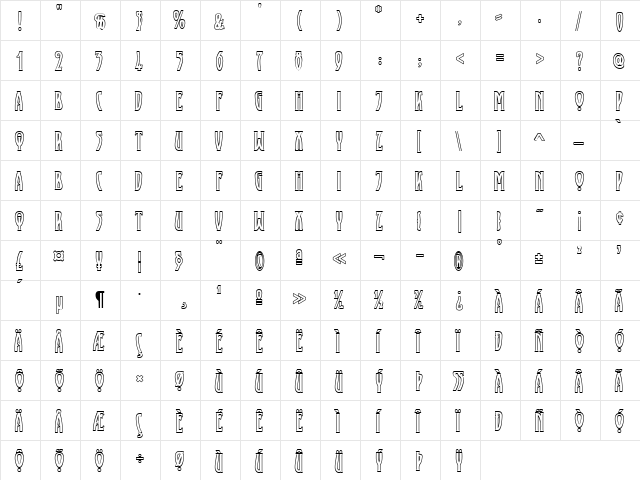
XAyax Outline Regular
| Foundry | Peter Wiegel |
| Designer | Peter Wiegel |
Design Context for XAyax Outline Typeface
XAyax Outline brings ornamental detail and strong personality to headlines and identities, where visual impact matters more than quiet functionality.
Font Pairing: Pair with a clean neutral sans-serif for body copy to let XAyax Outline's character lead without overwhelming the composition.
Pro Tip: Treat XAyax Outline as the centrepiece of your typographic hierarchy. One strong heading set in a decorative face can carry an entire layout.